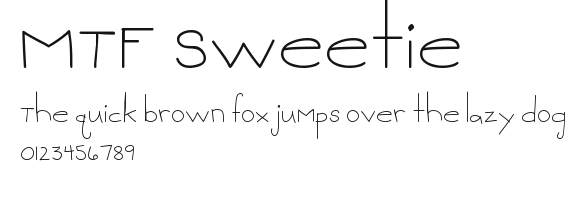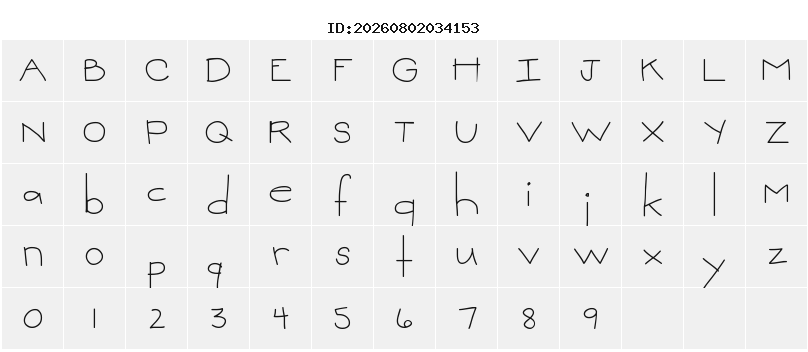
MTF Sweetie Preview
• Font Name: MTF Sweetie
• Font ID: MTF Sweetie:Version 1.00
• Full Font Name: MTF Sweetie
• Version: Version 1.00 July 8, 2008, initial release
• PostScript Name: MTFSweetie
• Designer: MissTiina
About MTF Sweetie.ttf
MTF Sweetie.ttf is a modern, elegant sans-serif font designed for ultimate readability and visual harmony. Perfect for branding, headlines, web design, and print materials.